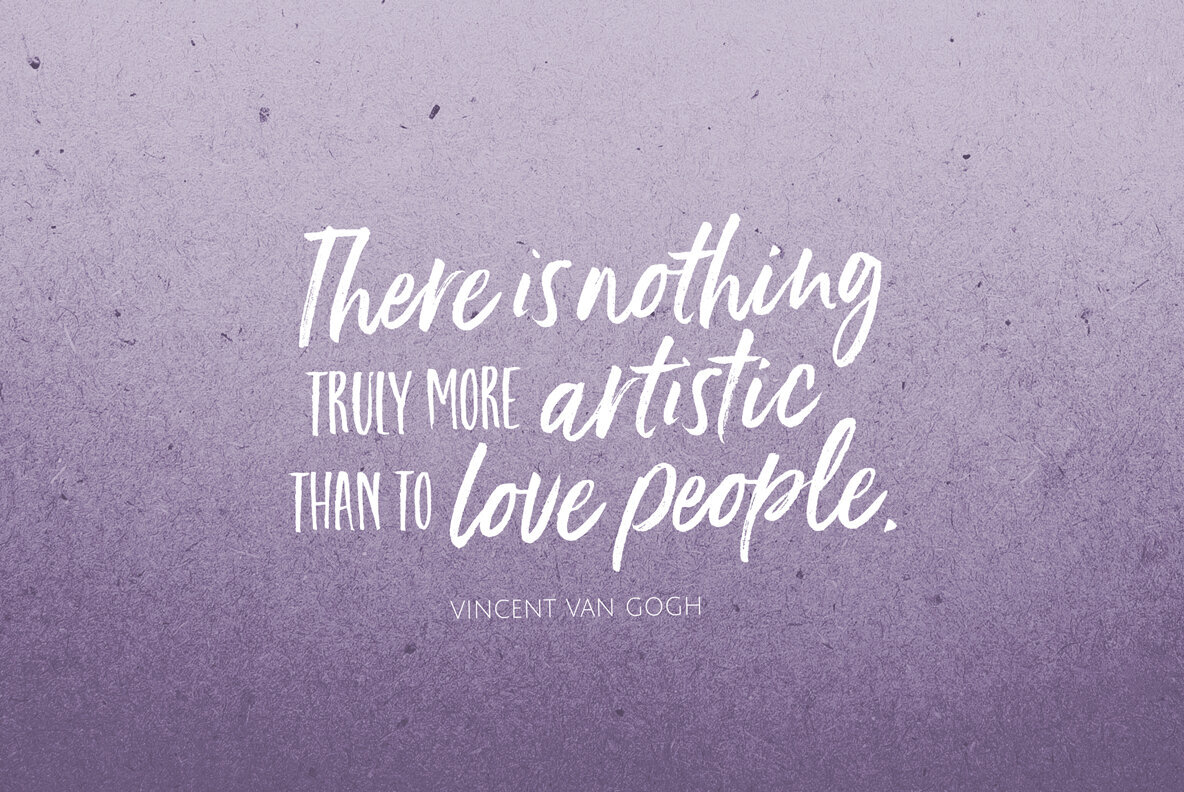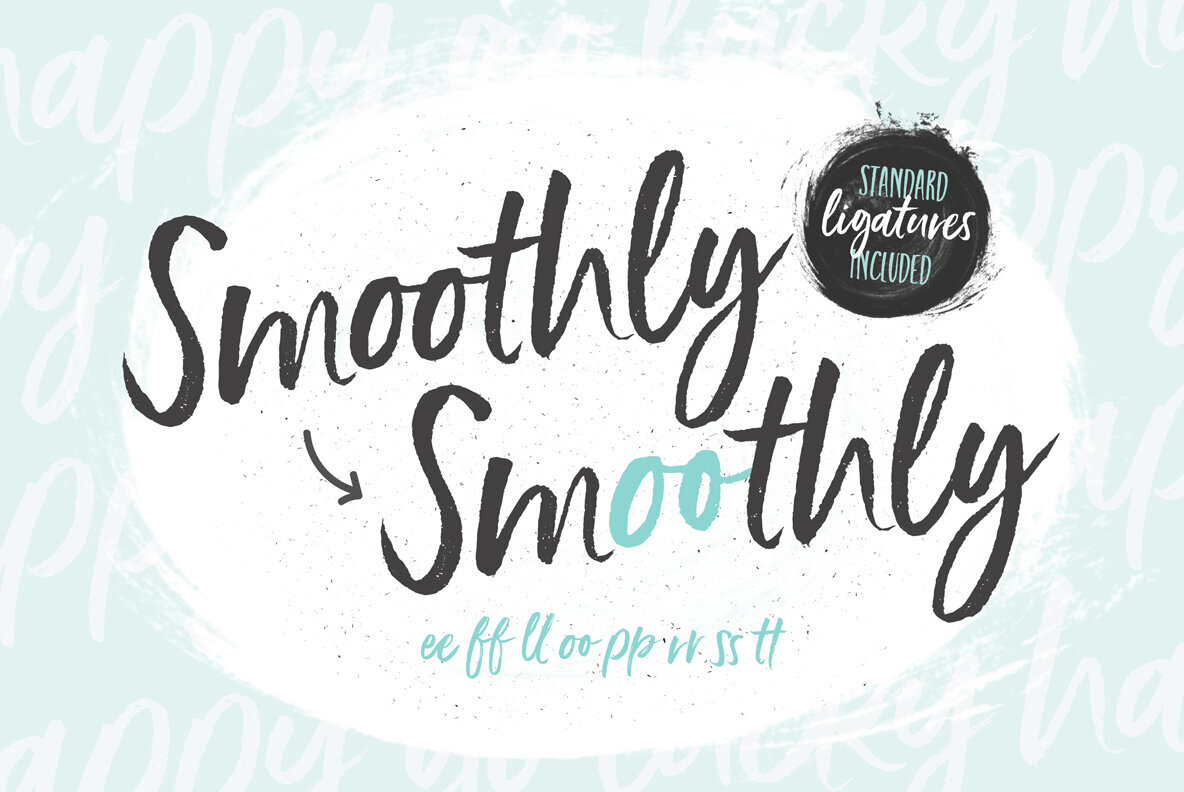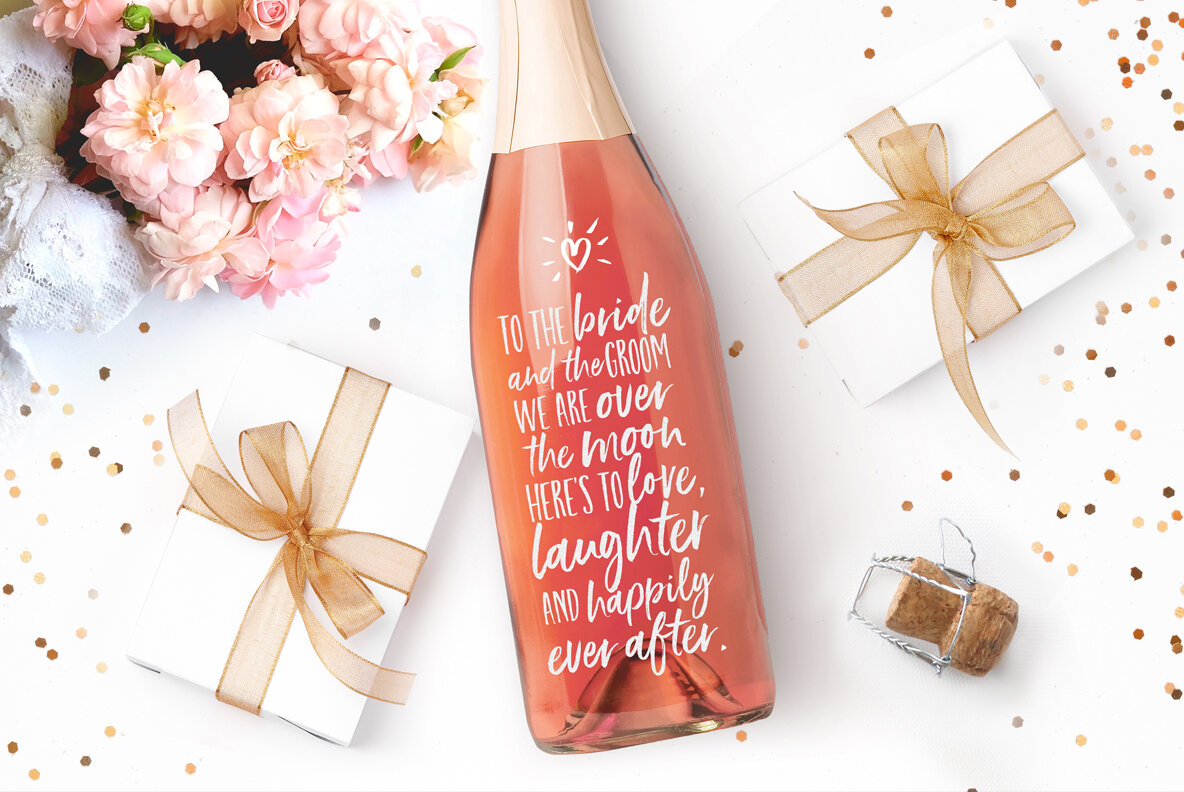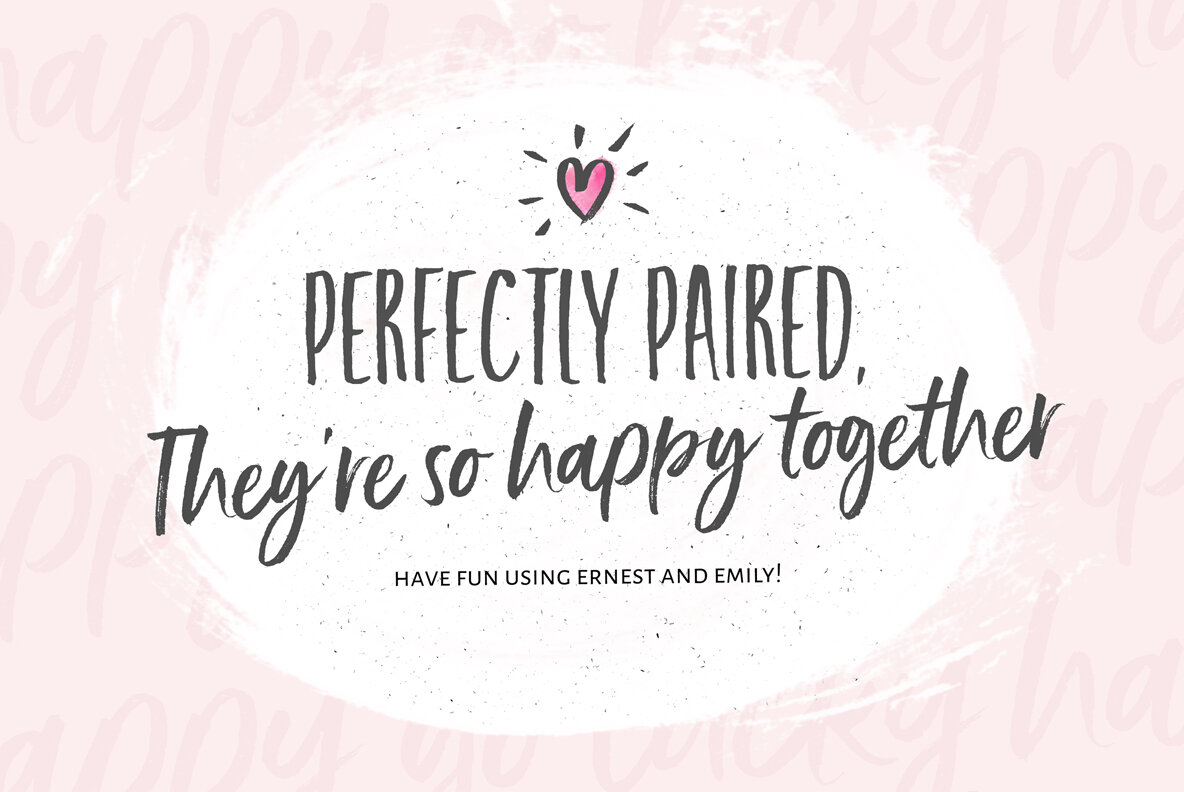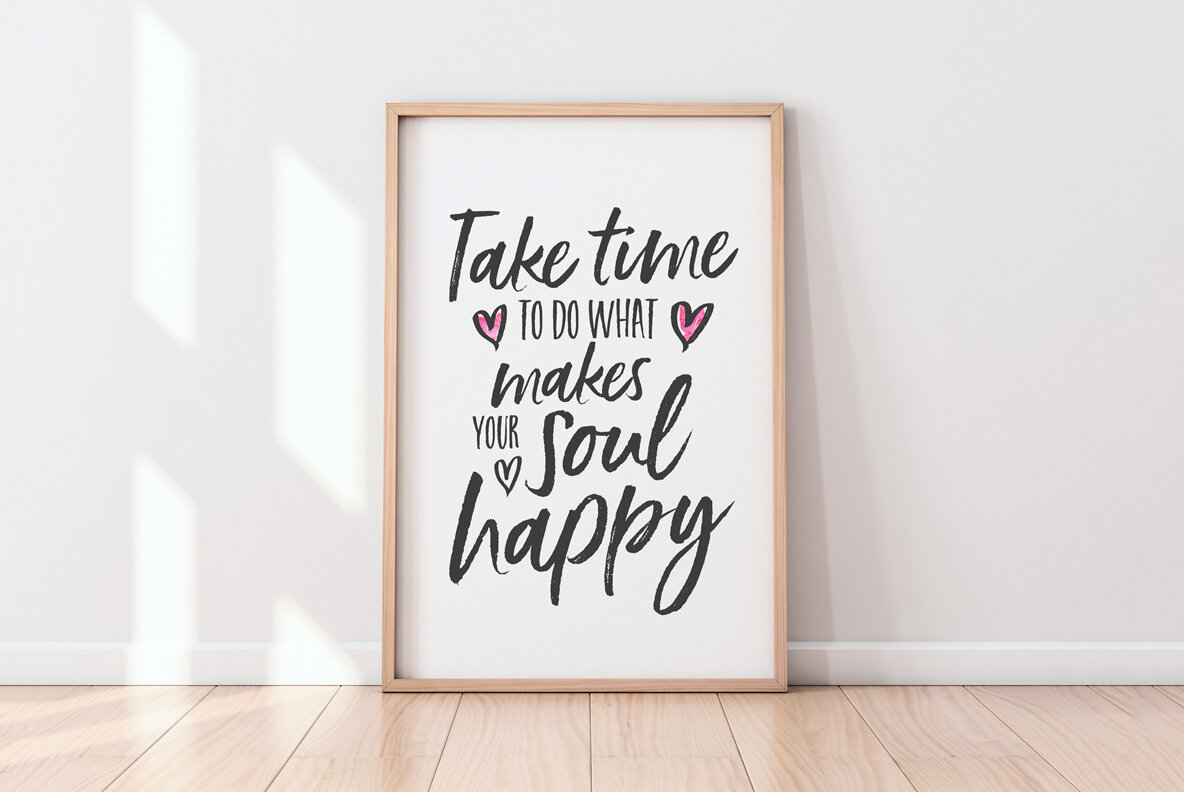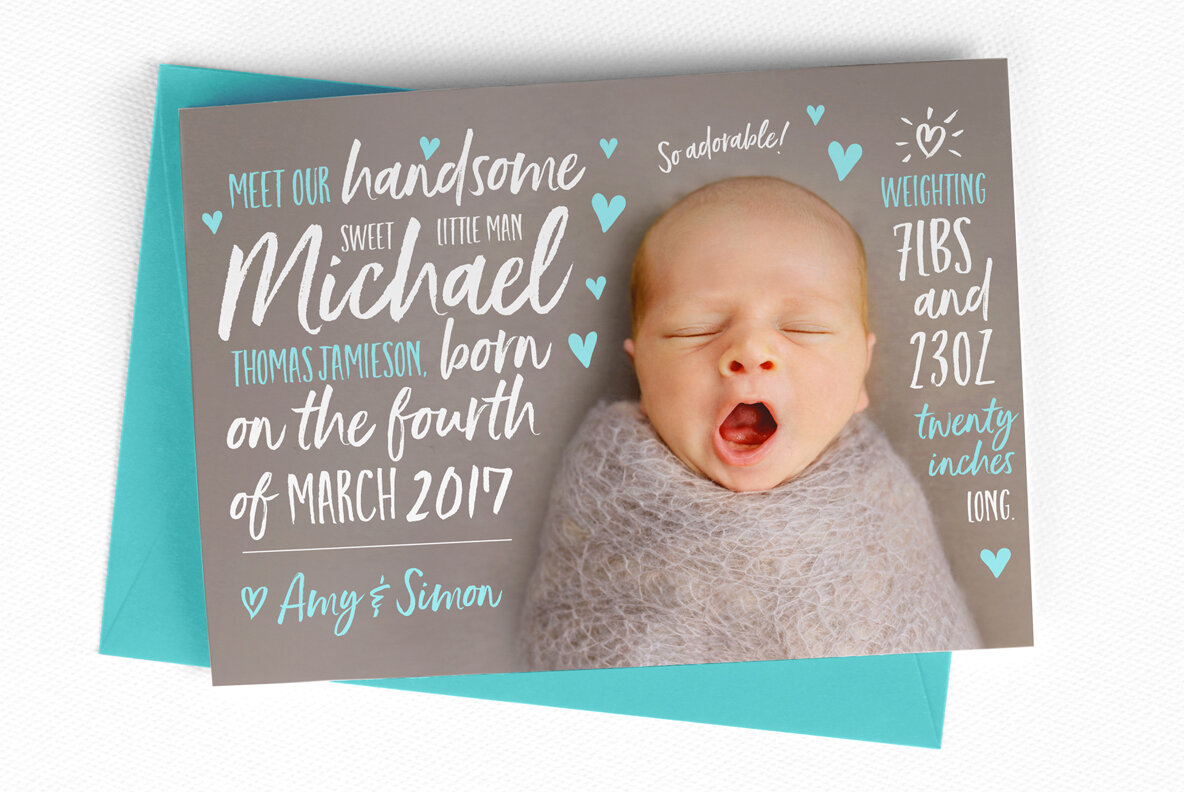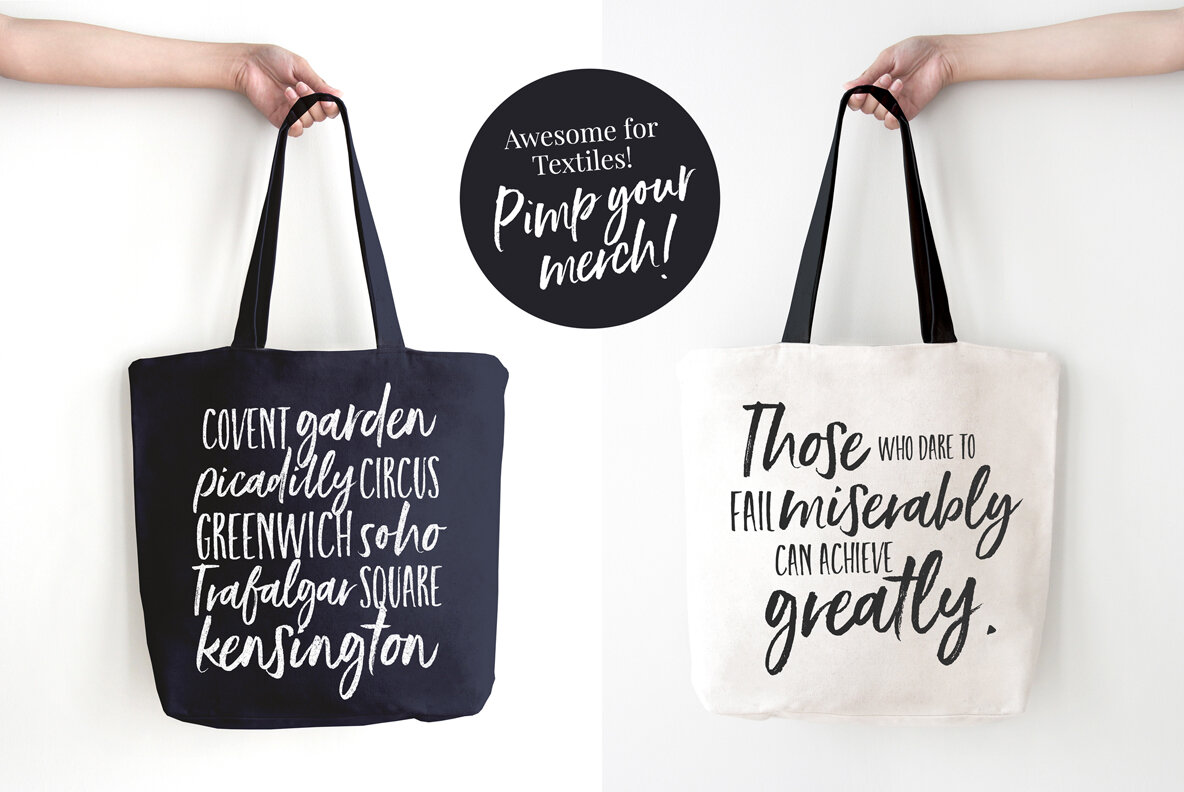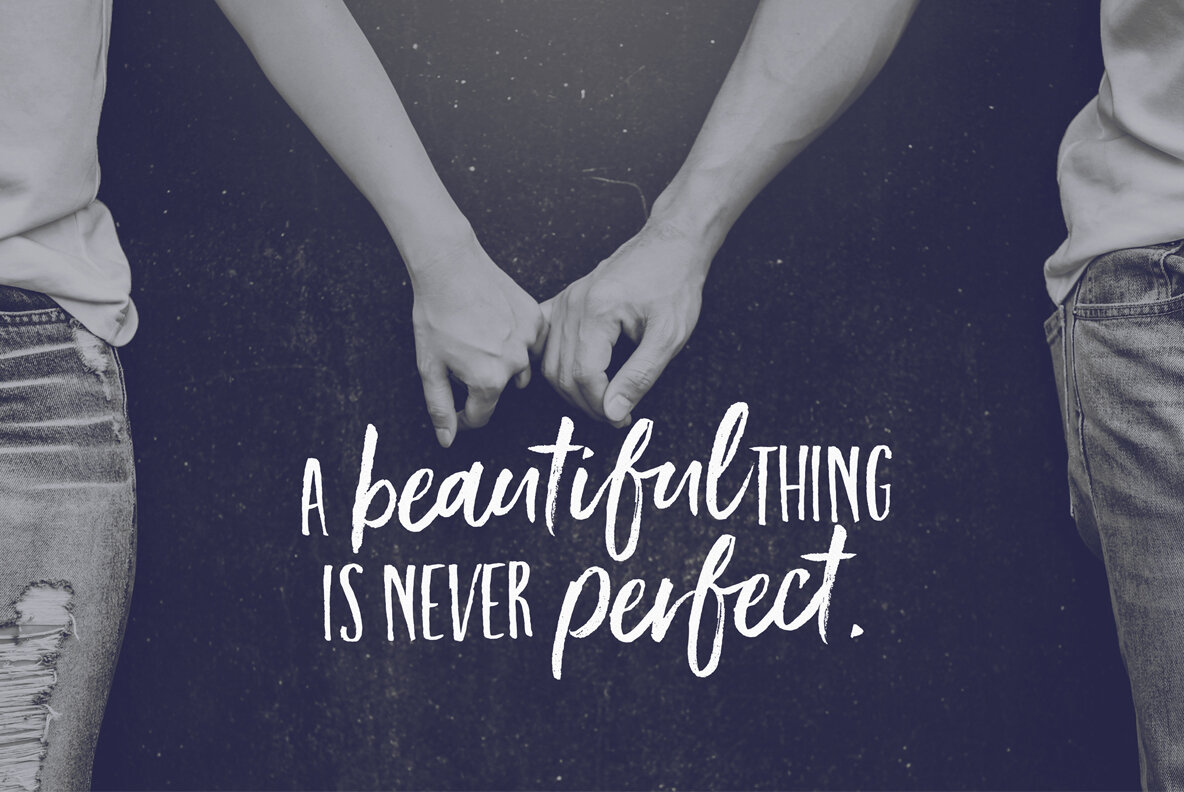
Ernest and Emily Font
I’d like to introduce you to Ernest and Emily :) ....The happiest font do you'll ever meet :) They are completely in love with each other, and always get along like a house fire :)
Ernest and Emily consist of two lovingly handwritten fonts. A brushed quirky-casual script, and a playful all-caps sans serif font.
Perfect for Type-based creations, branding, websites, merchandise, packaging, quotes, invites, greetings and so much more! All they need is a blank canvas, and they work their magic for you!
The brush script comes in 3 variants - Regular, Slanted and Upright- each with its own twist to fit the look you need.
Four sweet little heart glyphs can be found by typing the characters { } and [ ] individually.